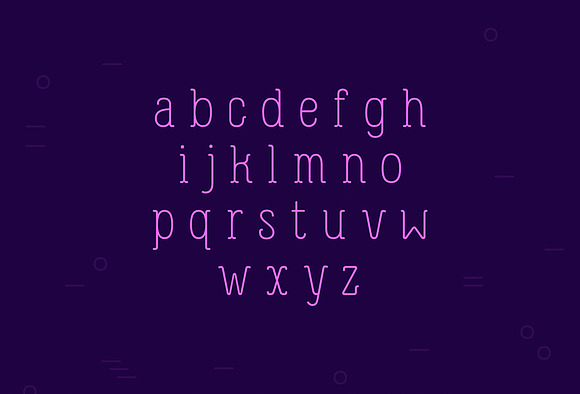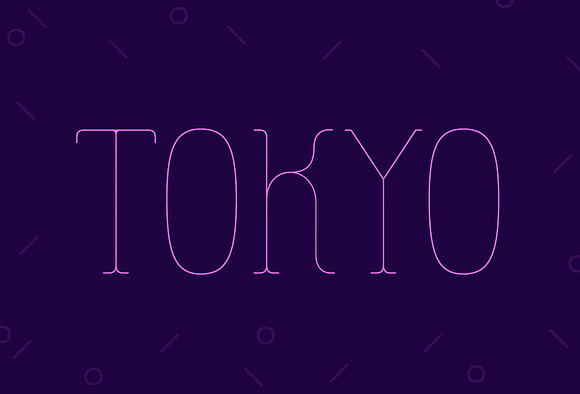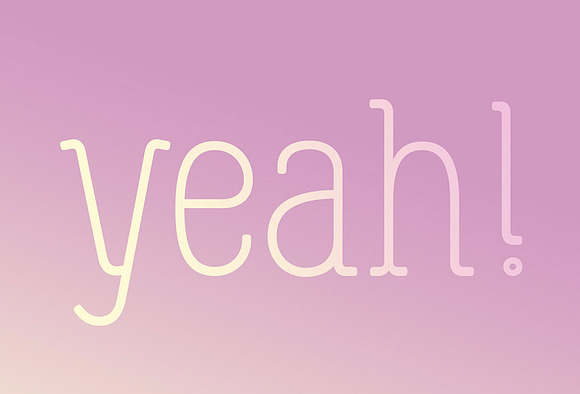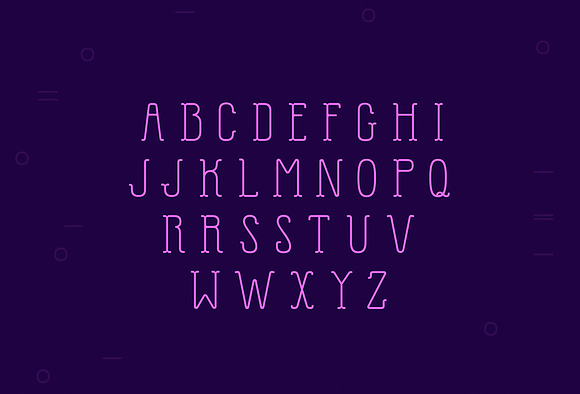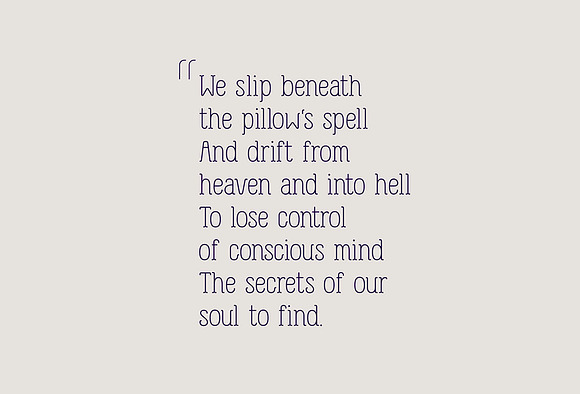
Mafalda - Type Family
Mafalda is a serif typeface inspired by Gothic Sans and Neo-Humanist Sans types with low stroke contrast, large x-height, very open apertures and just a bit condensed width. The uppercase letters carry a slight sense of old age, something like Art Nouveau mixed with Art Deco, bringing a balanced mood and aesthetic to all the type family.